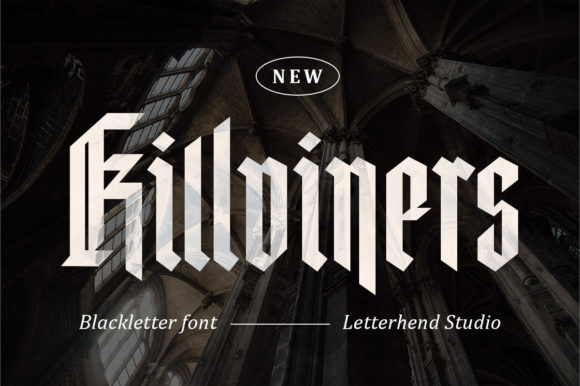
Behold Killviners, the modern blackletter font that oozes gothic allure and stylish flair! Dive into a world of captivating designs, where Killviners' bold strokes and sleek curves transform your creative visions into masterpieces.
With its roots in the depths of medieval artistry, Killviners embodies the essence of timeless elegance. Its gothic vibe whispers of ancient tales and legends, while its stylish flair adds a touch of contemporary sophistication. This captivating font is a symphony of contrasts, merging the old and the new in perfect harmony.
Imagine your band's website, adorned with Killviners' striking presence. The font's bold characters command attention, drawing visitors into your musical realm. Each letter is a testament to your band's unique identity, echoing the raw power of your music and the passion that fuels your performances.
Killviners is not just a font; it's an artistic statement. Its versatility extends beyond band websites, reaching into the realms of posters, flyers, album covers, and any creation that demands a bold and impactful presence. Unleash your creativity and watch as Killviners transforms your designs into stunning works of art.
With Killviners at your fingertips, you possess the power to turn ordinary words into extraordinary expressions. Its gothic charm adds a touch of mystique to invitations, wedding stationery, and personal branding projects. Let Killviners elevate your designs to new heights, leaving a lasting impression on all who encounter them.